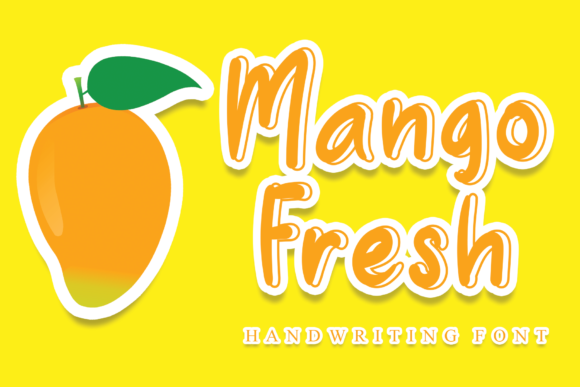
Introducing Mango Fresh, a captivating script font that radiates joy and warmth. Its elegant curves dance across the page, creating a charming and alluring impression that's perfect for adding a touch of whimsy to your designs. Whether you're crafting logos, invitations, or social media graphics, Mango Fresh will elevate your creations with its irresistible charm.
Immerse yourself in a world of creative possibilities with Mango Fresh. Its playful nature makes it a perfect choice for adding a personal touch to your projects. From heartfelt notes to playful branding, Mango Fresh will infuse your designs with a sense of warmth and happiness that will leave a lasting impression.
But don't just take our word for it. Experience the magic of Mango Fresh for yourself and discover why it's a favorite among designers seeking a font that combines style and playfulness. Its versatility knows no bounds, adapting effortlessly to a wide range of design aesthetics. Whether you're a seasoned professional or just starting your creative journey, Mango Fresh is the perfect companion for adding a touch of joy to your designs.